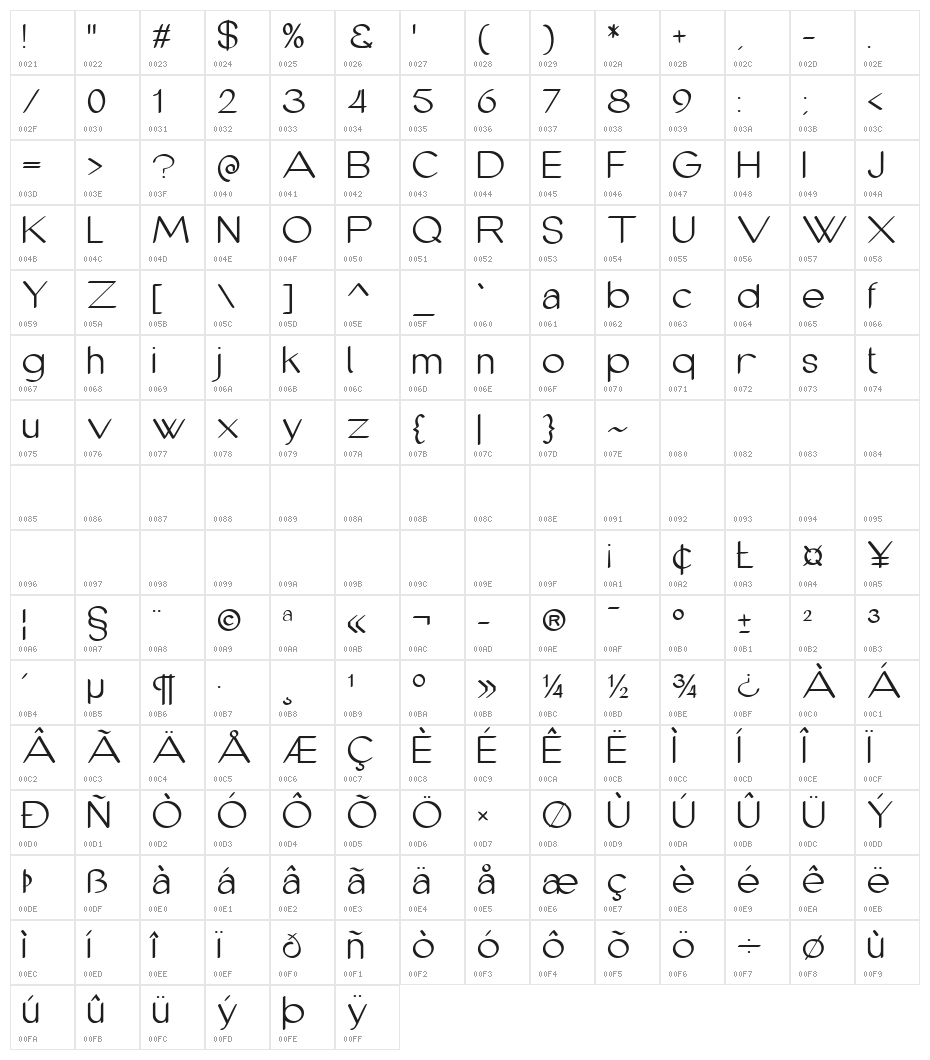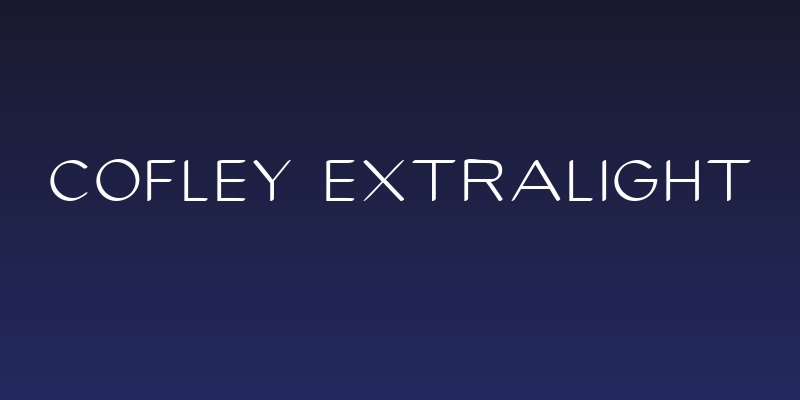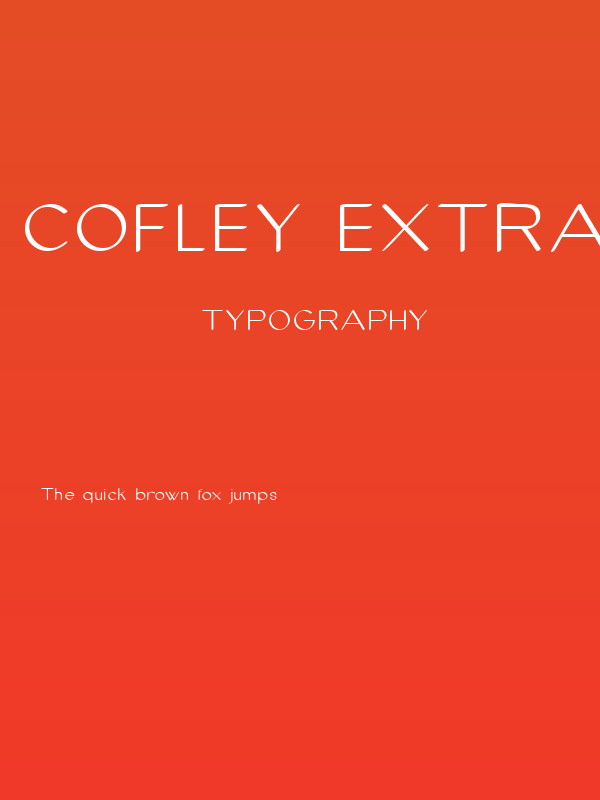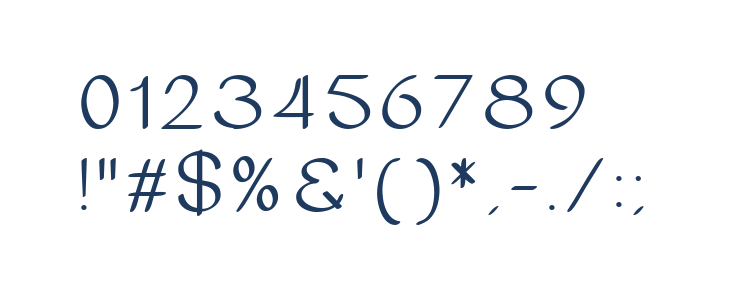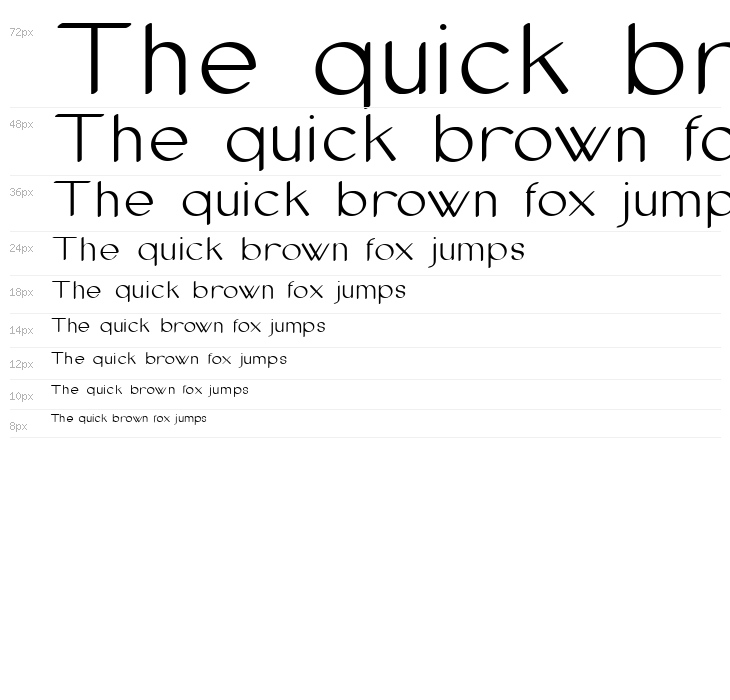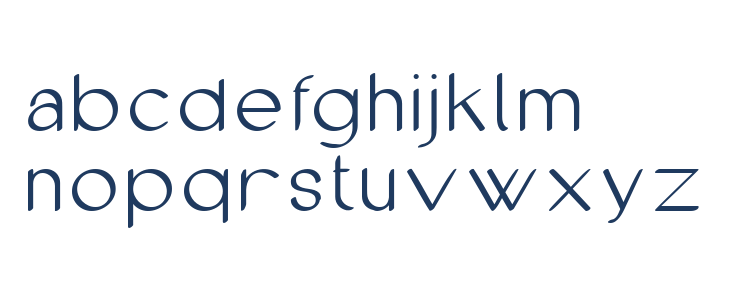
cofley extralight Font
cofley extralight Description
This font features a clean and minimalist design with smooth, rounded edges and a consistent stroke width, giving it a modern and airy appearance. The characters are well-proportioned, with a slight geometric influence that enhances readability. The uppercase letters are slightly taller than the lowercase, providing a balanced and harmonious look. The numerals are clear and distinct, matching the overall style of the alphabet. Special characters are elegantly integrated, maintaining the font's sleek and contemporary aesthetic.
| Proposed Projects | Ideal for branding, web design, and editorial projects where a clean and modern look is desired. |